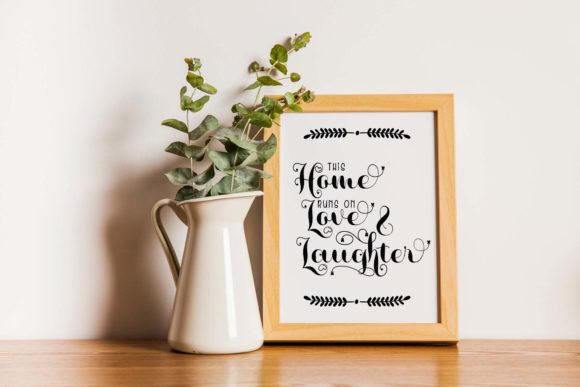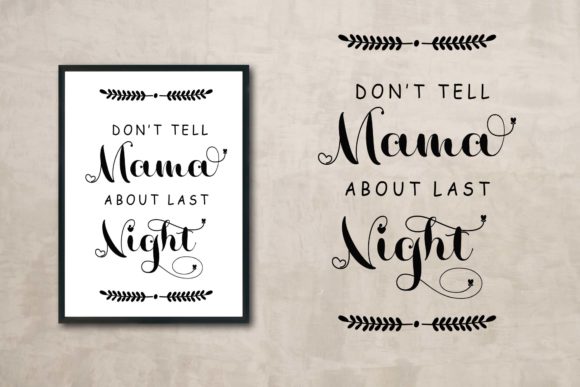
Rushlove Font
db-ku.com - Script & Handwritten -- is a whimsical script font with a relaxed theme, featuring a lovely style. No matter the topic, this font will be an incredibly asset to your fonts’ library, as it has the potential to elevate any creation. This font is PUA encoded which means you can access all of the glyphs and swashes with ease!